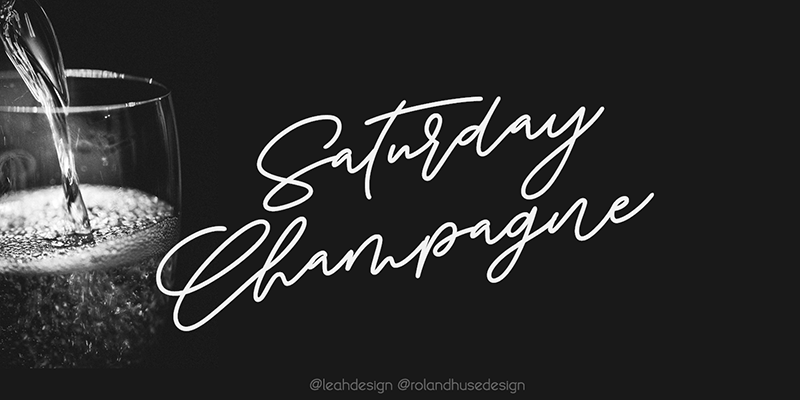
SATURDAY CHAMPAGNE is a monoline modern calligraphy script. Perfect for titles, headings and logotypes for blogs, ads, quote prints, home decor, book title, invitation, birthday, custom product, lifestyle imagery (like quotes and stuff). This font is written by the amazing hand letterer and fellow artist of mine, Leah Chong, and is our first collaboration project that I really enjoyed working together. Definitely will do more of these kind of projects. This is the demo version of the font, free for personal use only. for full version and commercial license please visit store.rolandhuse.com or contact contact@rolandhuse.com You MAY NOT sell this font or claim them as your own. You MAY NOT edit or rename this font. You MAY NOT redistribute this font. Thank you I hope you like this font & good luck with your project! Roland Instagram: @leahdesign @rolandhusedesign Awesome background image by Simon Buchou from Unsplash https://unsplash.com/@simon_buchou |